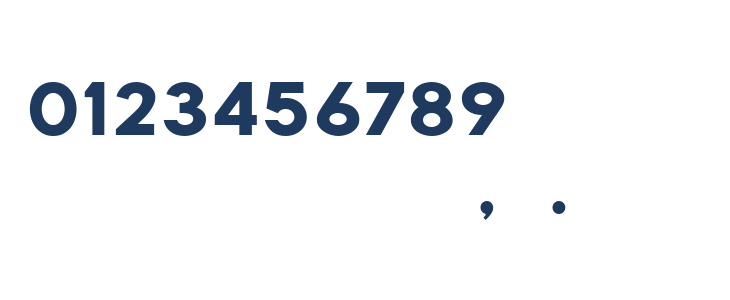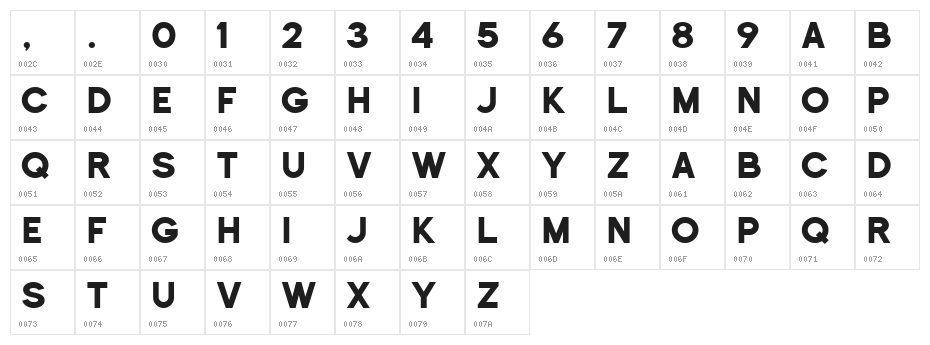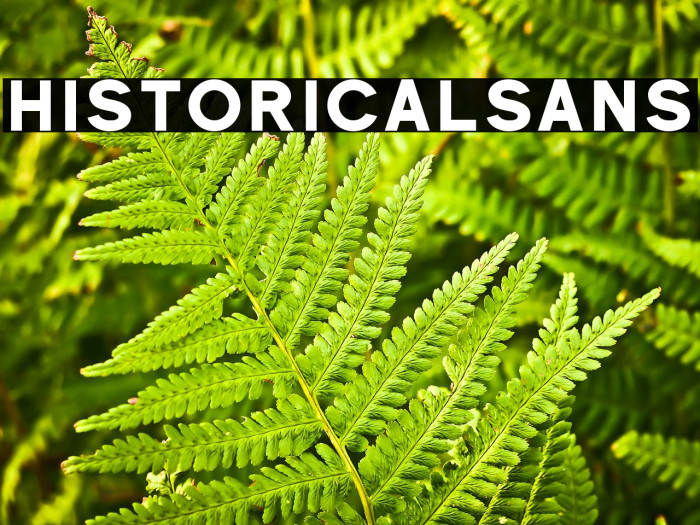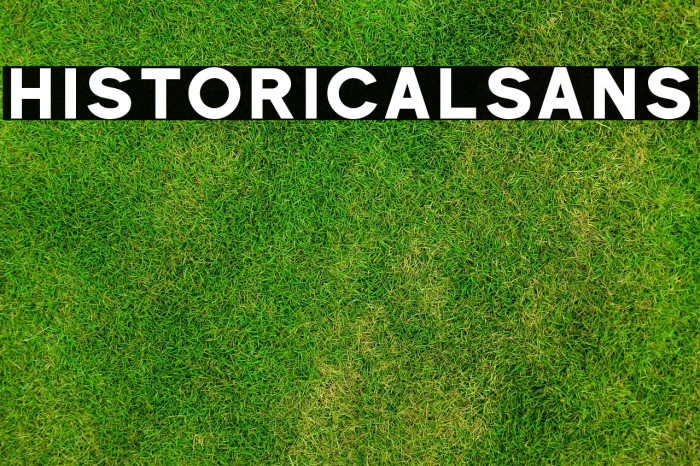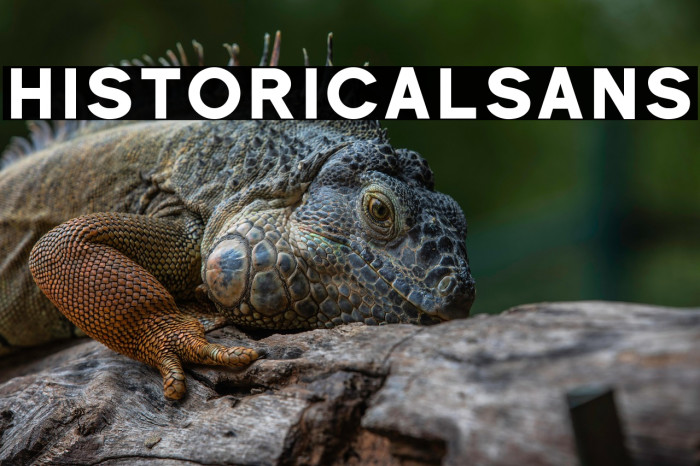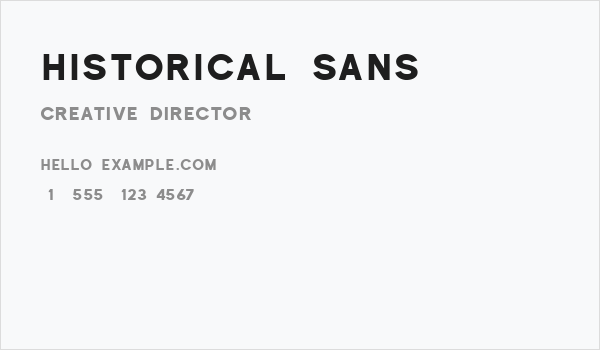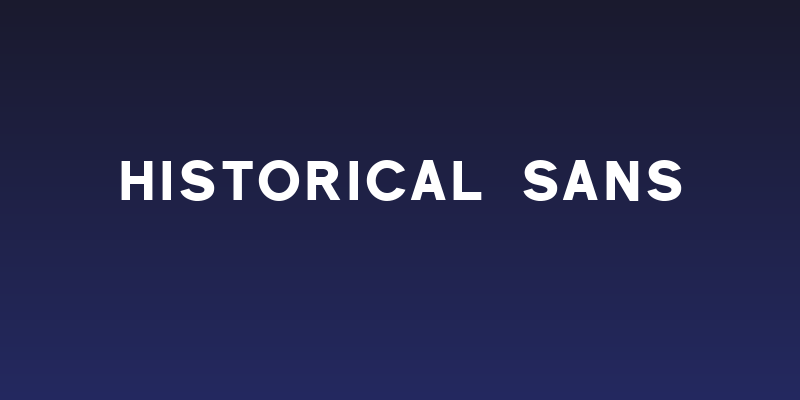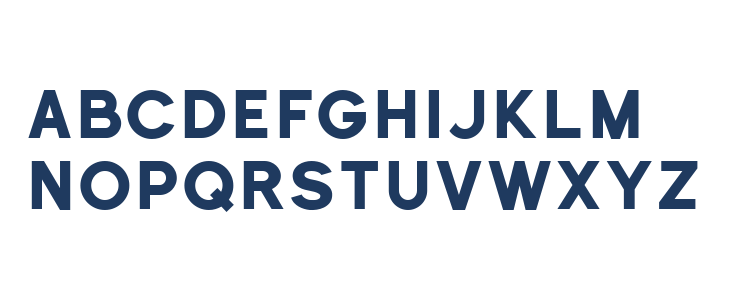
Historical-Sans Font
Historical-Sans Description
This font features a clean and modern sans-serif style, characterized by its bold and uniform stroke width. The uppercase letters are well-proportioned, with a geometric simplicity that enhances readability. The numerals are distinct and clear, making them suitable for various applications. The overall design is straightforward, with no additional embellishments, ensuring a versatile use across different media. The character spacing is normal, providing a balanced appearance that is neither too tight nor too wide. This font's simplicity and clarity make it an excellent choice for contemporary design projects.
| Use Case | Headlines, Logos, Digital interfaces |
| Proposed Projects | Ideal for branding, advertising, headlines, and digital interfaces. |